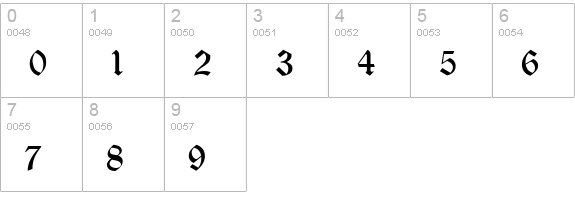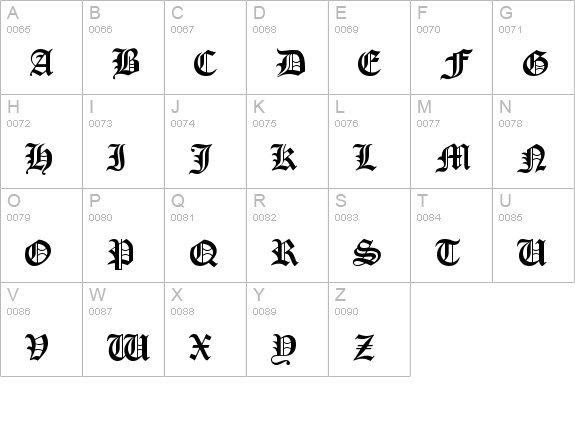
Oldchristmas Regular Font Details
Oldchristmas Regular is the standard, neutral variant in the Oldchristmas typeface family \xE2\x80\x94 well suited to general body text, paragraphs, and standard typographic work.
Oldchristmas Regular font is a charming and nostalgic typeface perfect for adding a touch of vintage flair to your designs. With its classic serif style and unique character shapes, Oldchristmas Regular exudes a sense of timeless elegance and warmth. This versatile font is ideal for a wide range of projects, from holiday greeting cards to rustic signage. What sets Oldchristmas Regular apart is not only its traditional aesthetic but also the fact that it is completely free to download. That's right, you can access this delightful font at no cost on FontsMarket.com. Whether you're a seasoned designer looking to add a festive touch to your work or a beginner exploring new typography options, Oldchristmas Regular is a fantastic choice that won't break the bank. Download Oldchristmas Regular today and elevate your designs with a touch of old-world charm and sophistication. Let this delightful font inspire your creativity and bring a sense of nostalgia to your next project.